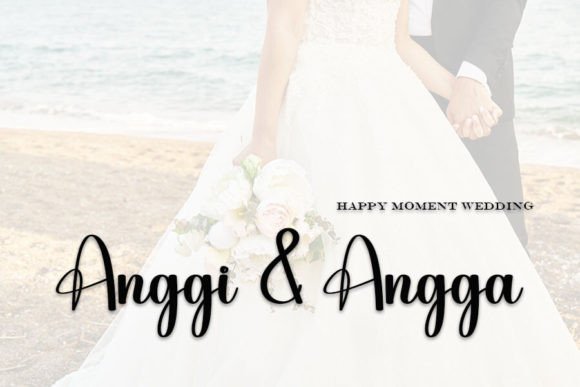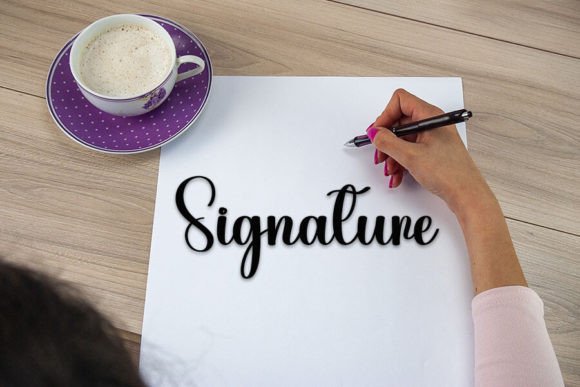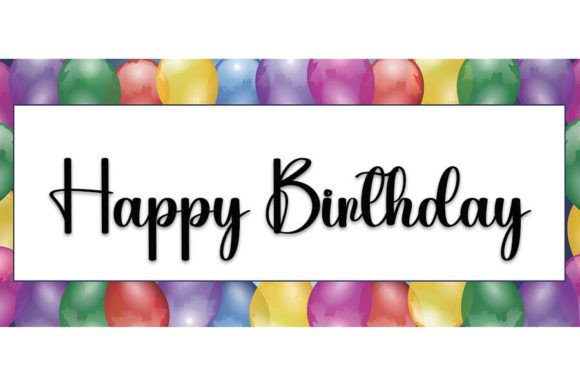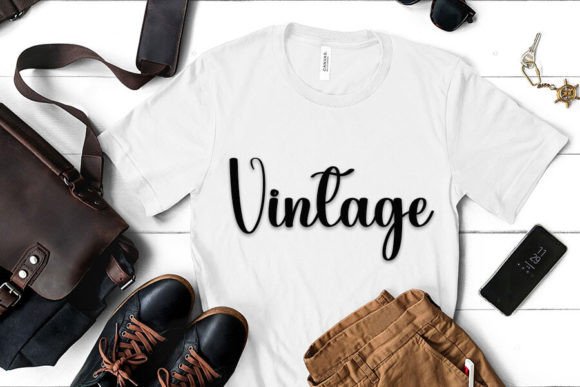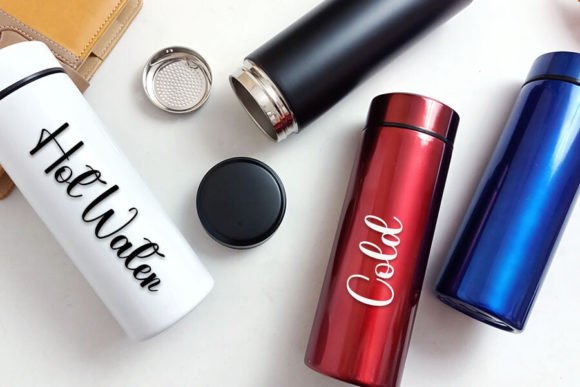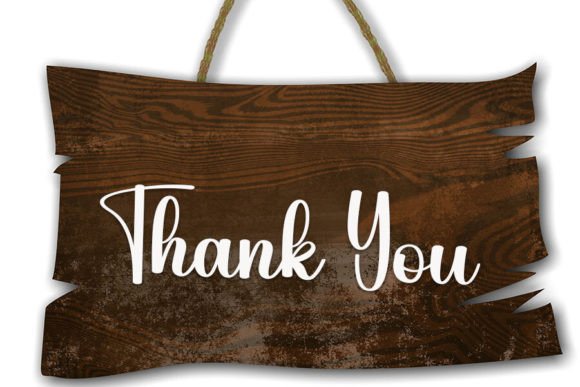
The Perfect Ride for Your Design Projects
You know that moment when you’re working on a project and you just can’t seem to find the right font to bring it all together? The words are on the page, but something’s missing, and you can’t quite put your finger on it. That’s where the Bicycle Font comes in – a stylish handwritten font that’s sure to take your designs to the next level.
With its contemporary atmosphere and impeccable form, the Bicycle Font is the perfect companion for any design project. Whether you’re working on a brochure, a website, or a social media campaign, this font is sure to add a touch of elegance and sophistication. And with its PUA encoding, you’ll have access to all of the amazing glyphs and ligatures that will help you create truly unique and beautiful designs.
Bicycle Font Key Features
- Unique Design: Bicycle Font features a unique, hand-drawn design with a mix of modern and vintage elements, making it perfect for creative projects.
- Language Support: Supports a wide range of languages, including Latin, Cyrillic, and Greek alphabets, making it suitable for international projects.
- Character Set: Includes a comprehensive set of characters, including uppercase and lowercase letters, numbers, punctuation marks, and special symbols.
Bicycle Font Review
I recently had the chance to work with the Bicycle Font, and here’s my honest take on it.
- ✨ Unique Design: The Bicycle Font has a quirky, hand-drawn feel that’s sure to add some personality to your design projects.
- ✨ Customization Options: The font comes with a range of customization options, including different weights and styles, which can be easily applied to your design.
- ⚠️ Limited Character Set: The Bicycle Font’s character set is somewhat limited, which can make it tricky to use for projects that require a lot of special characters.
- ⚠️ Not Ideal for Body Text: While the font is great for headlines and titles, it’s not the best choice for body text due to its quirky, cursive feel.
The Bicycle Font is a fun, unique addition to any designer’s toolkit. While it may have some limitations, it’s perfect for projects that require a bit of whimsy and personality. Just be sure to use it thoughtfully and in the right context.
Tips for Getting the Most Out of Bicycle Font
Here are a few tips for getting the most out of Bicycle Font:
- Use Bicycle Font for titles and headings to add a touch of whimsy and playfulness.
- Combine Bicycle Font with other fonts to create a unique and eye-catching design.
Common Use Cases for Bicycle Font
Bicycle Font is perfect for:
- Children’s books and educational materials.
- Advertising and marketing materials (e.g. posters
Alternatives to Bicycle Font for Designers
Circular Std
Circular Std is a sans-serif font designed for digital interfaces. It is known for its clean and modern look, making it suitable for tech-related projects, apps, and websites. Unlike Bicycle Font, Circular Std has a more geometric shape, which provides better legibility in small font sizes.
Inter is a sans-serif font designed for digital use. It is highly legible and versatile, making it suitable for a wide range of projects, from body text to headlines. Inter has a more neutral and modern look compared to Bicycle Font, which can be beneficial for projects that require a clean and professional look.
Montserrat is a sans-serif font inspired by the urban landscape of Montserrat, a mountain range in Argentina. It is highly legible and has a strong, geometric shape, making it suitable for headlines and titles. Unlike Bicycle Font, Montserrat has a more urban and edgy feel, which can be beneficial for projects that require a bold and modern look.